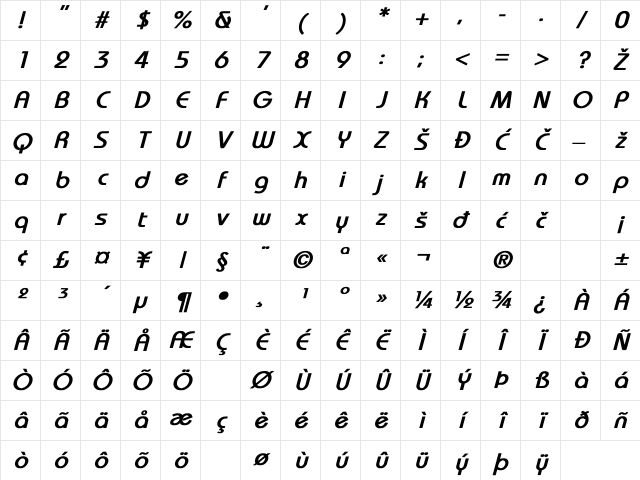
Bahamas Bold Italic
Design Context for Bahamas
Bahamas is a composed and adaptable typeface that performs quietly and consistently across a wide range of design contexts. The slanted form adds forward momentum and visual energy. Its bold stroke weight gives it real presence on the page.
Pro Tip: Use Bahamas for emphasis, pull quotes, and subheadings where its slanted energy can add rhythm to the layout.